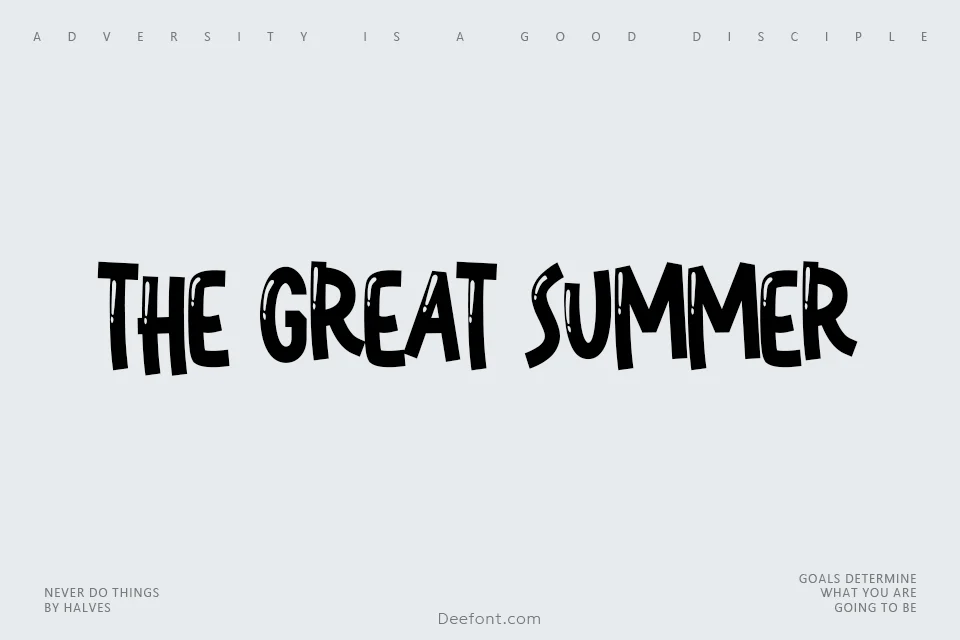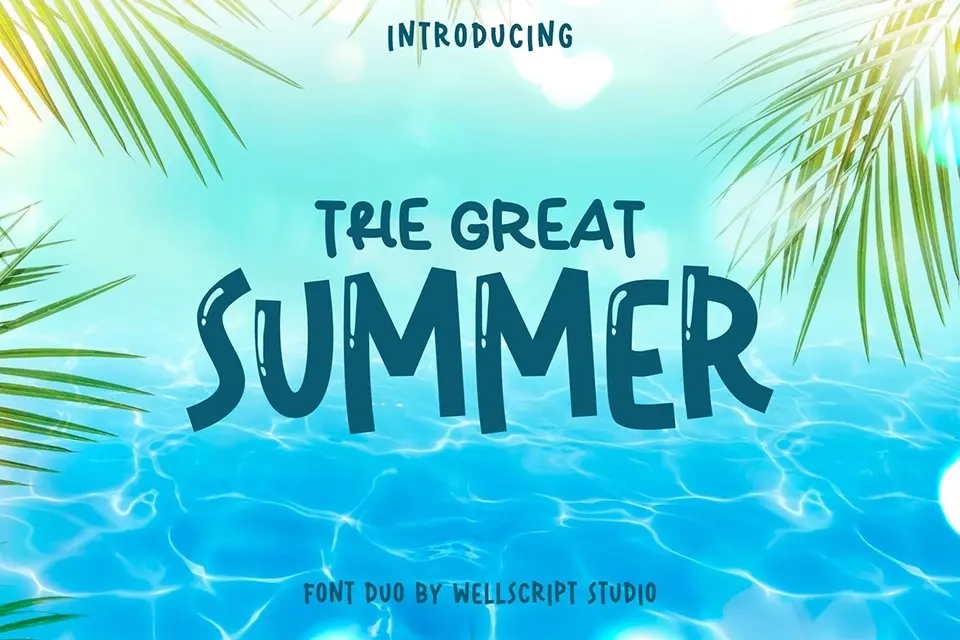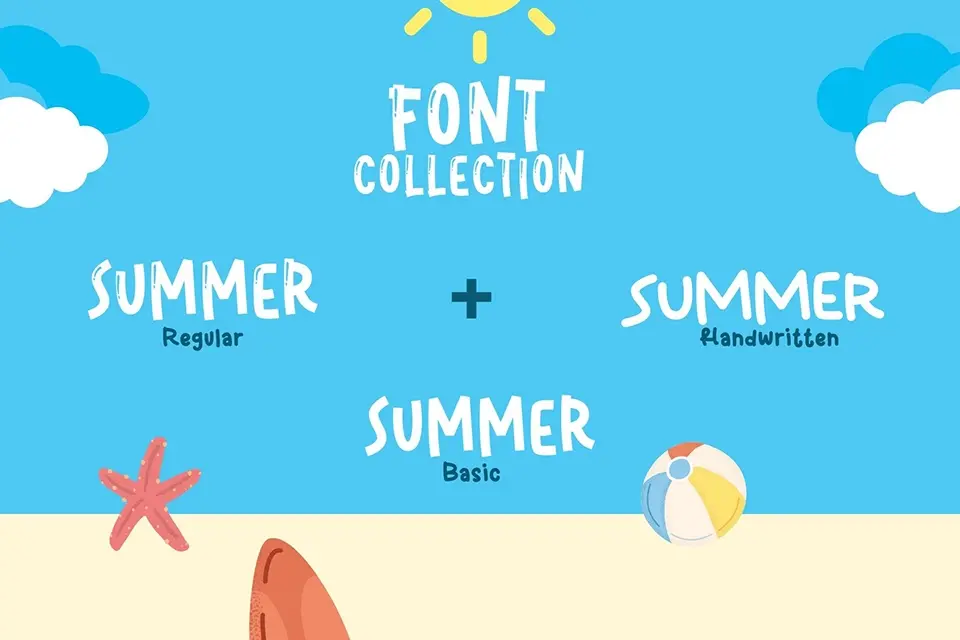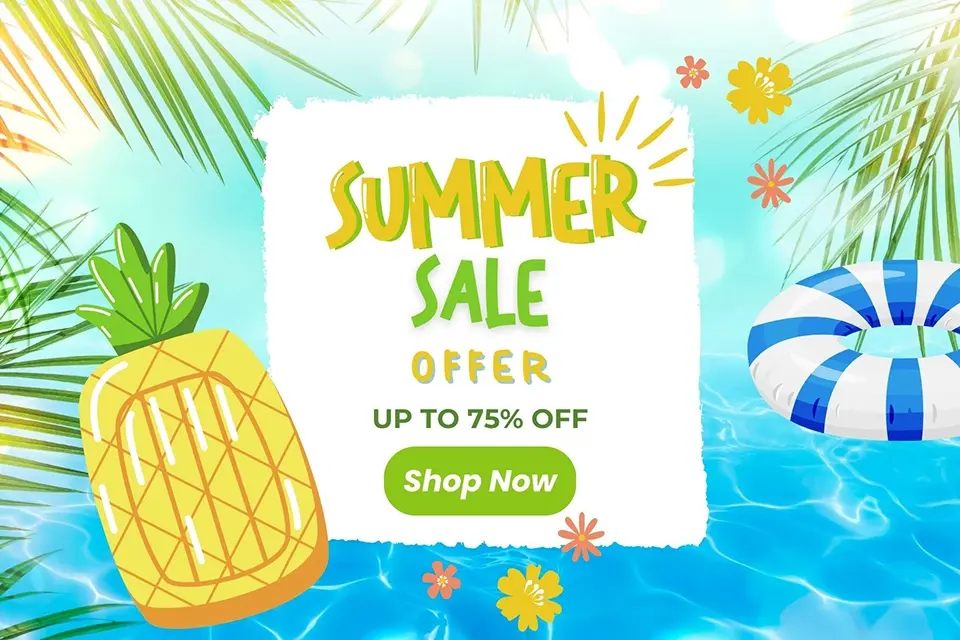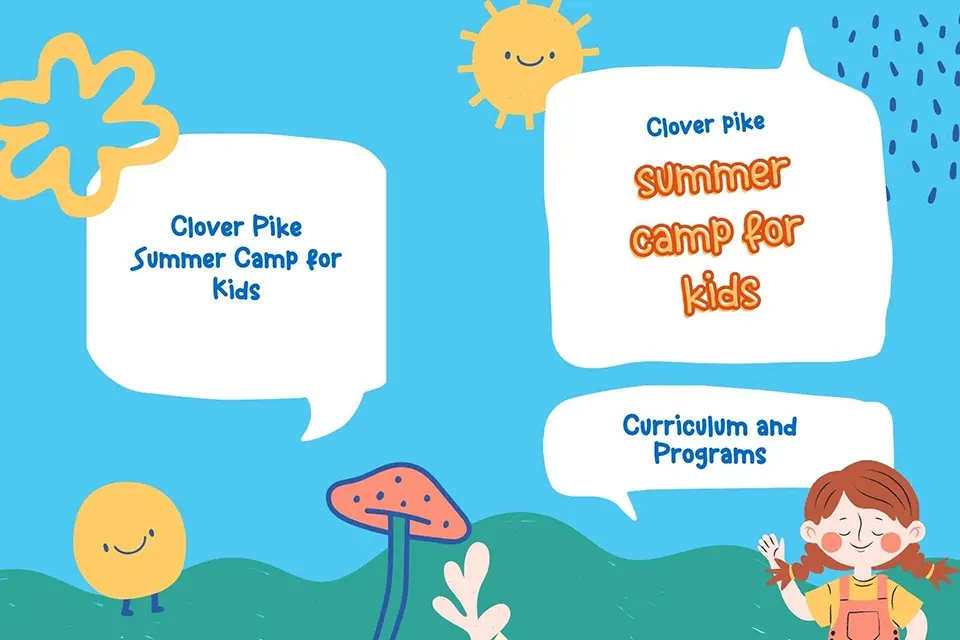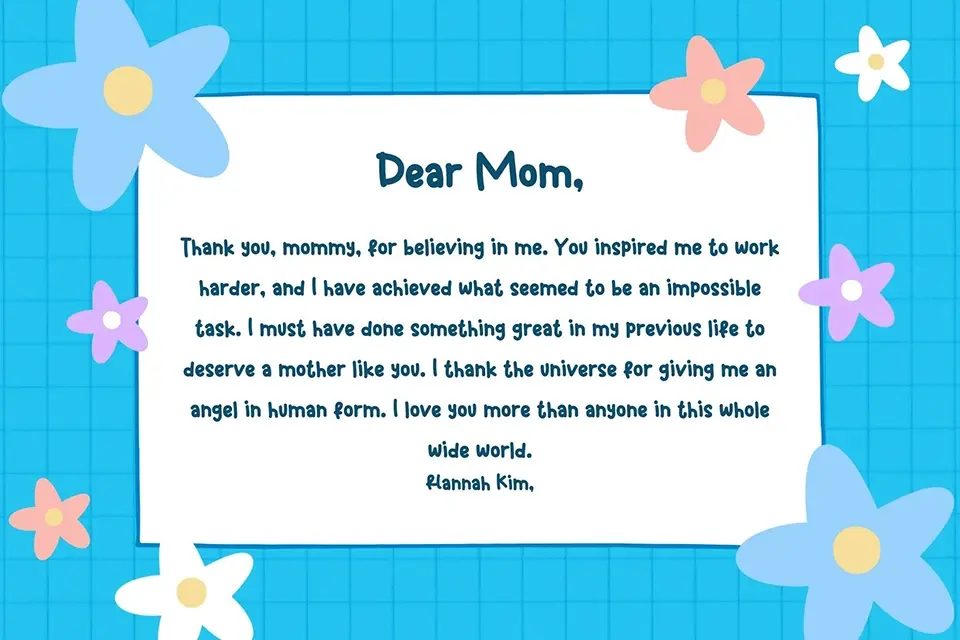
The Great Summer Font
The Great Summer is a vibrant display font crafted by Wellscript Studio, featuring a semi-bold weight and condensed width that perfectly captures the playful, carefree spirit of summer. With its cartoon-style design and dynamic curves, this versatile typeface excels in commanding attention across headlines, posters, and creative branding projects. The font’s engaging character design and organic aesthetic make it an ideal choice for children’s publications, event promotions, and whimsical design applications that require a touch of warmth, spontaneity, and joy.